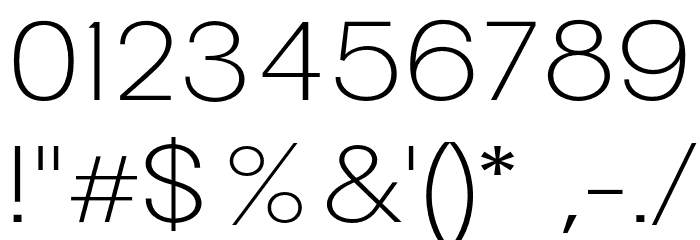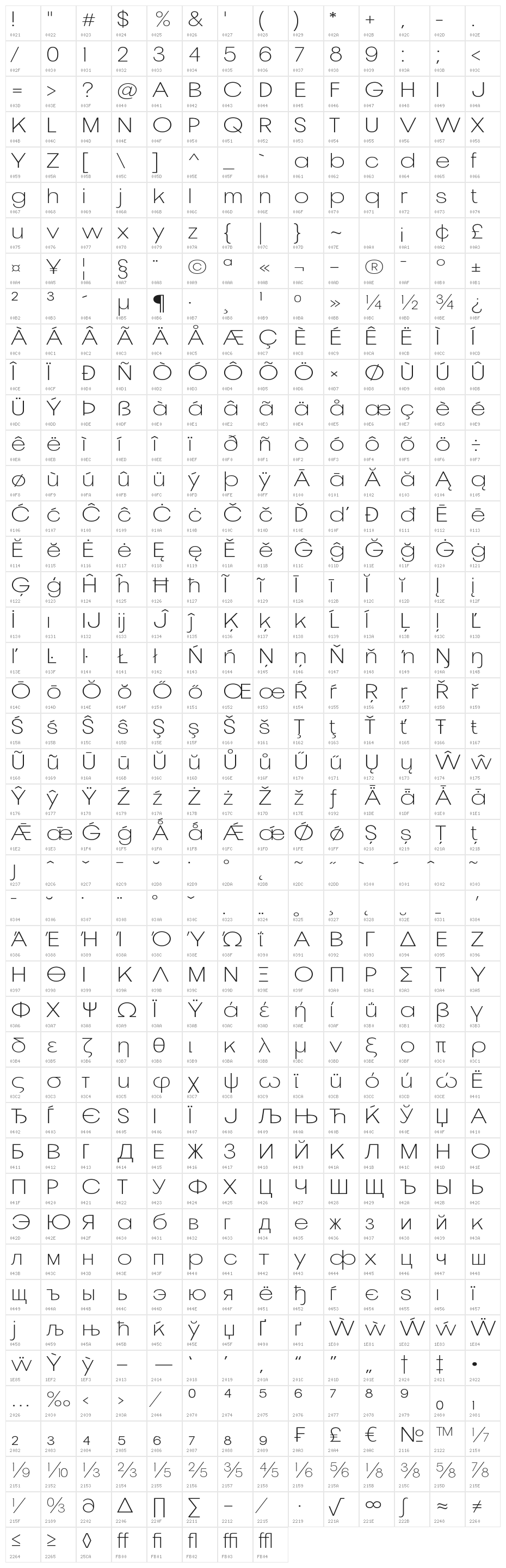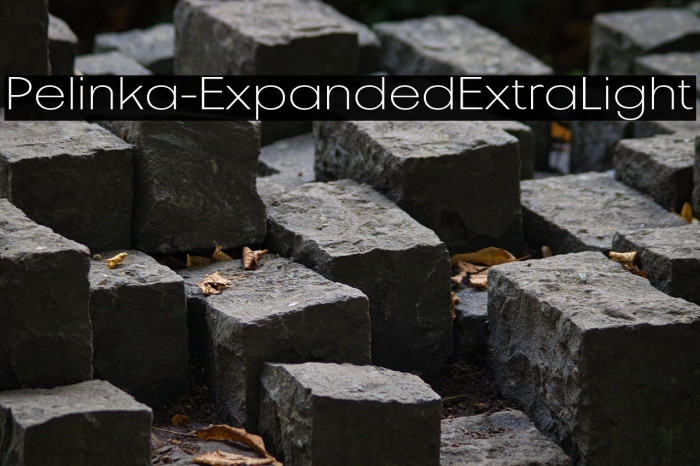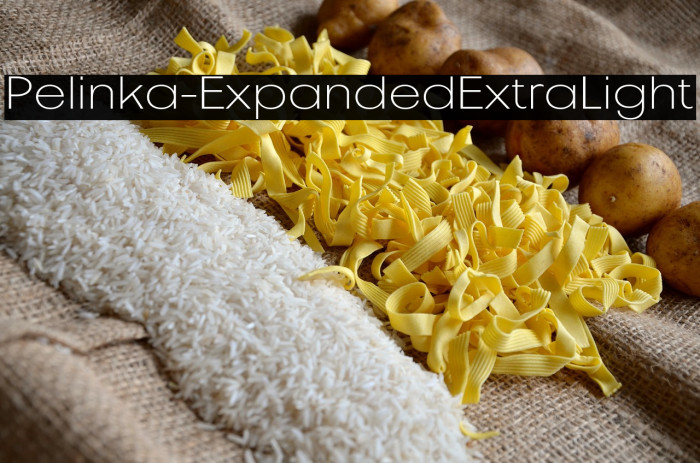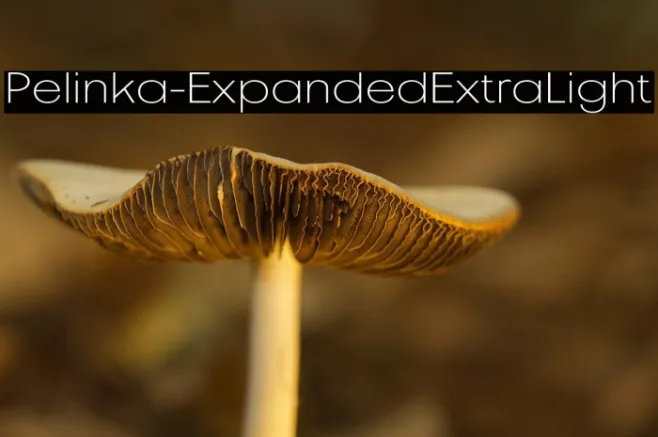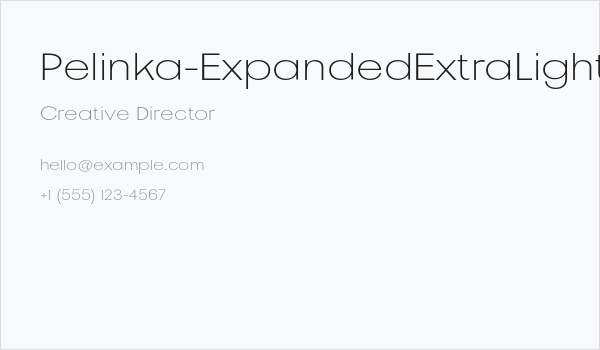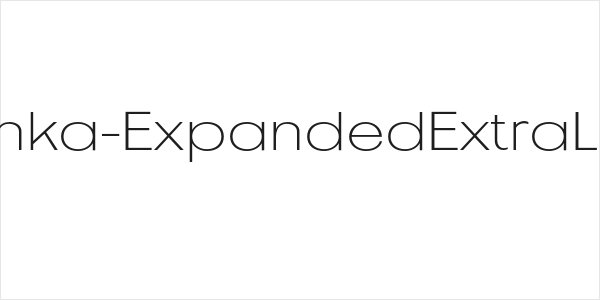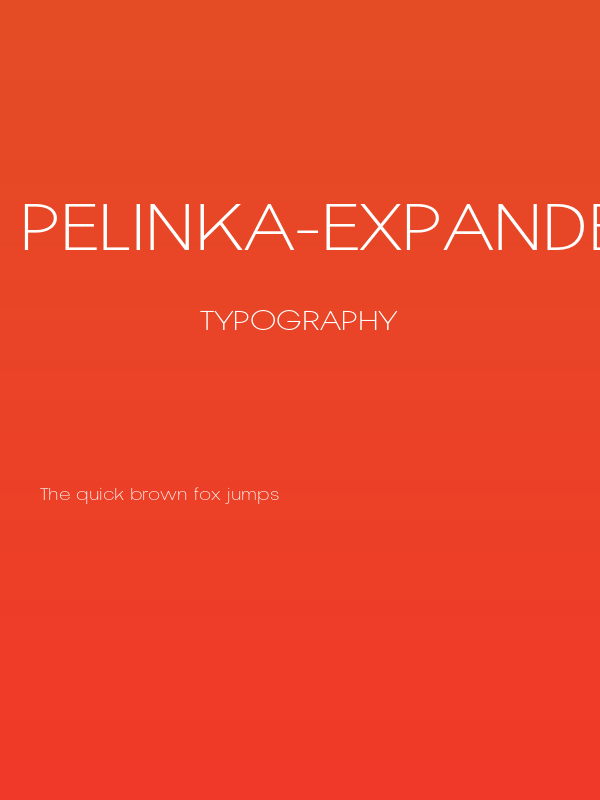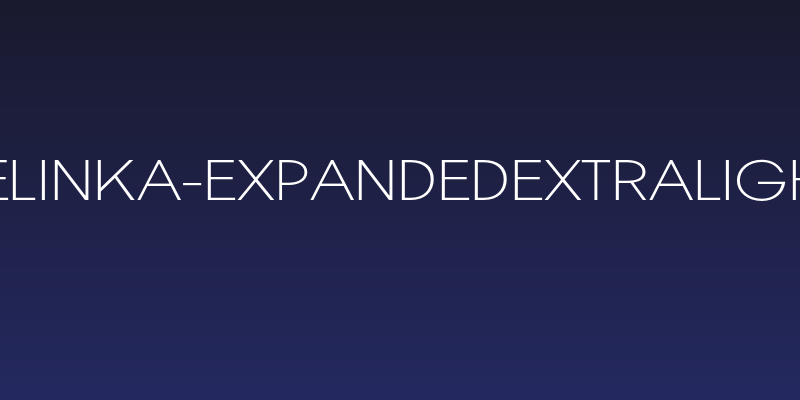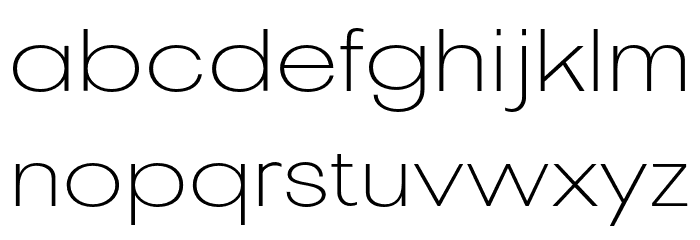
Pelinka-ExpandedExtraLight Font
Pelinka-ExpandedExtraLight Description
This typeface features a clean and modern aesthetic with an expanded width, providing a sense of openness and readability. The characters are crafted with a uniform stroke weight, contributing to a sleek and minimalist appearance. Its geometric shapes and precise lines make it ideal for contemporary design projects. The uppercase and lowercase letters maintain a consistent style, while the numerals and special characters are designed to complement the overall look. This font exudes a sense of sophistication and clarity, making it suitable for a variety of applications.
| Proposed Projects | Ideal for branding, advertising, web design, and editorial layouts. |